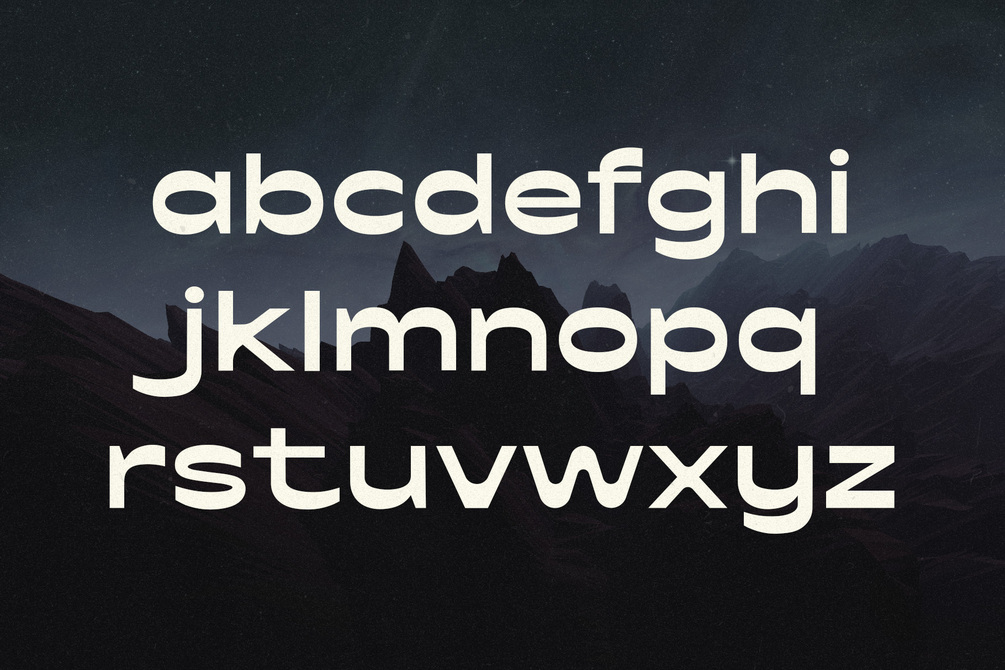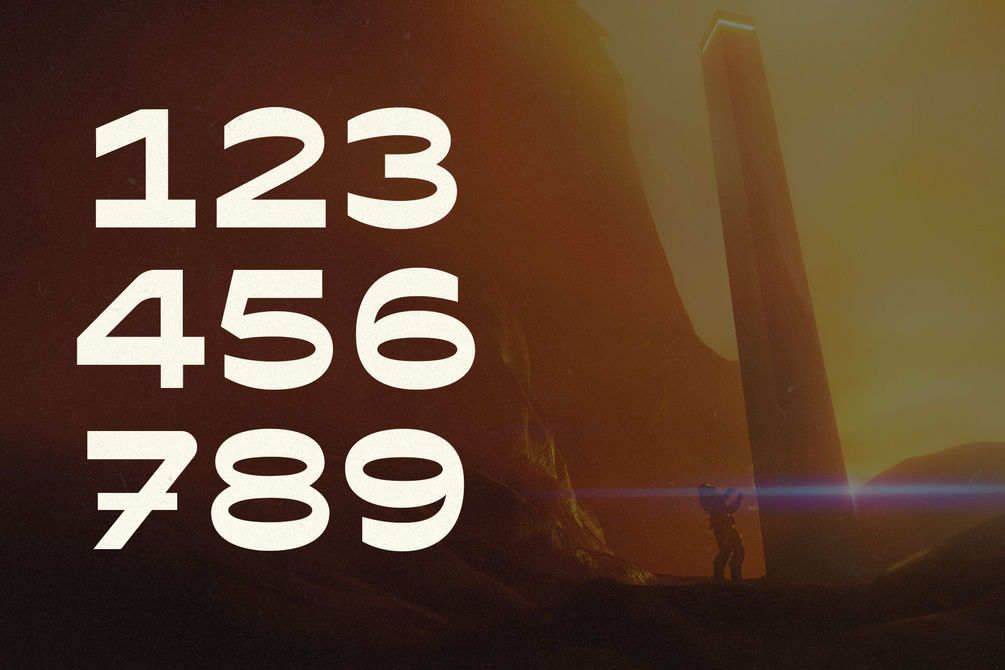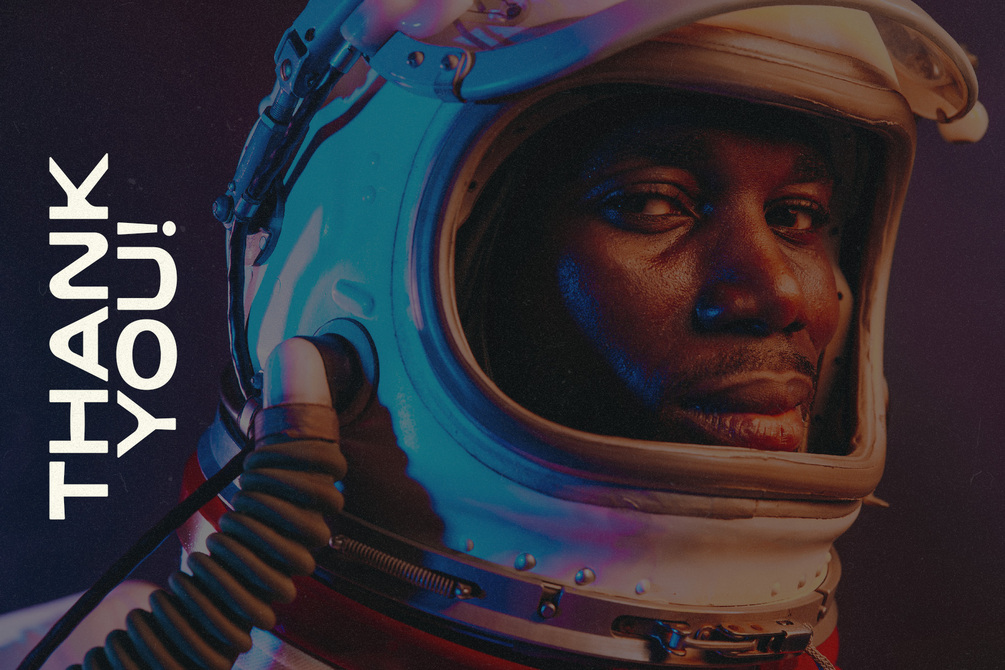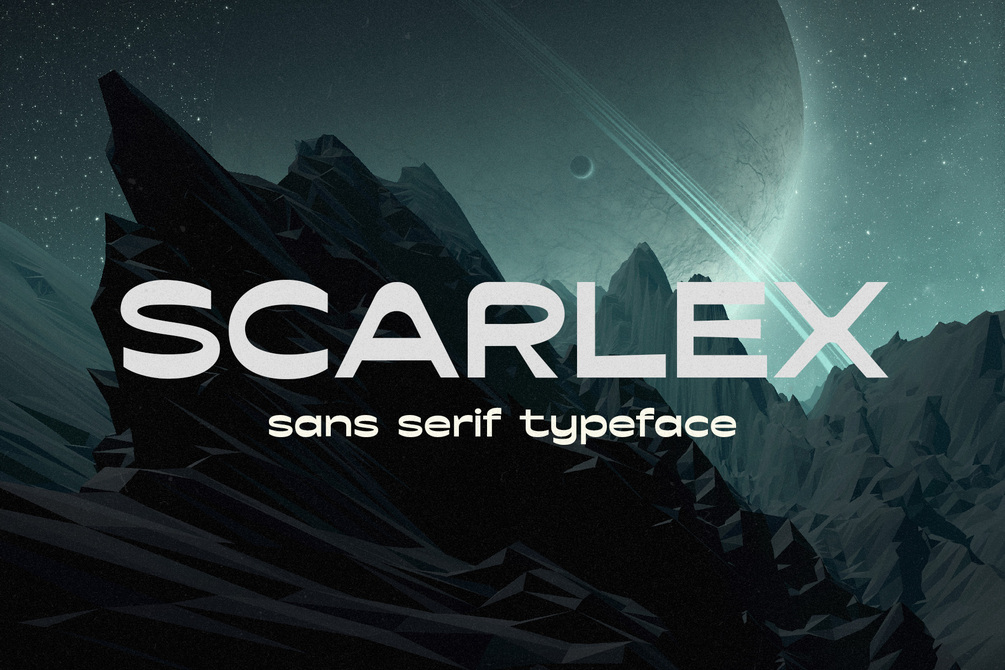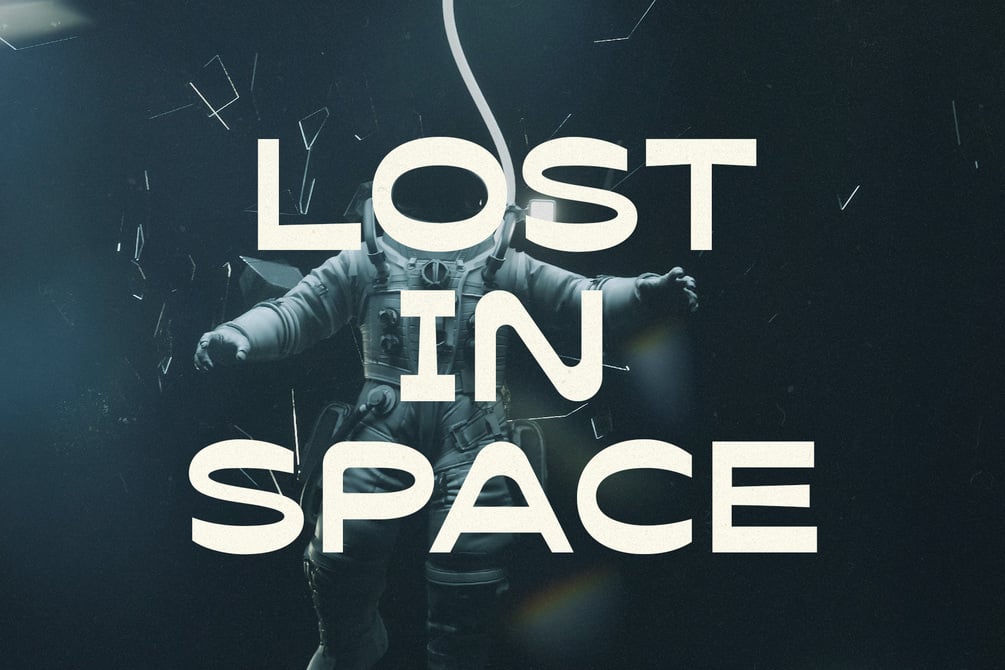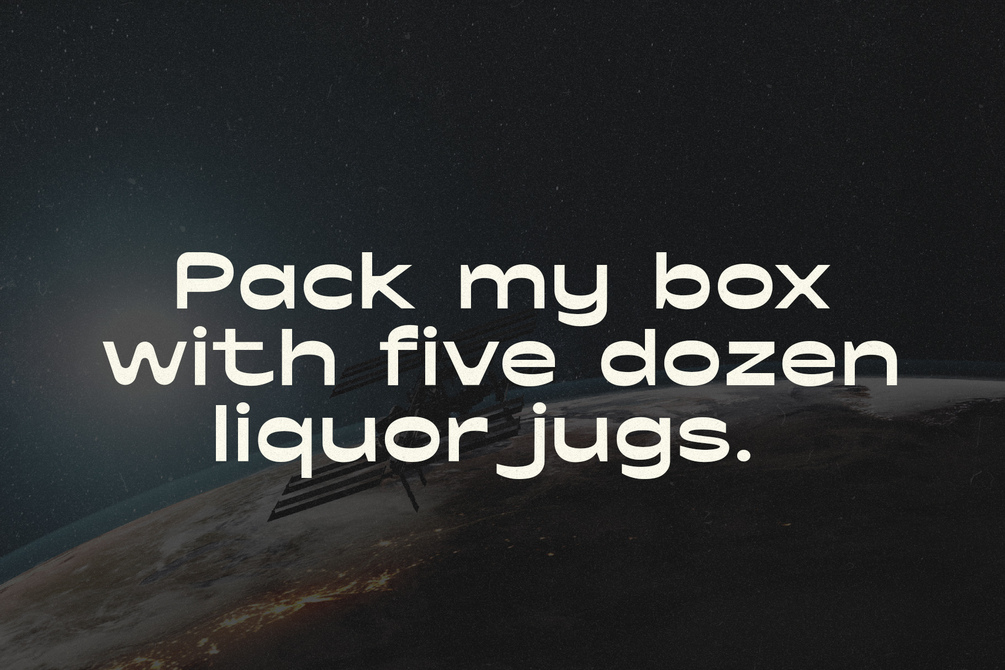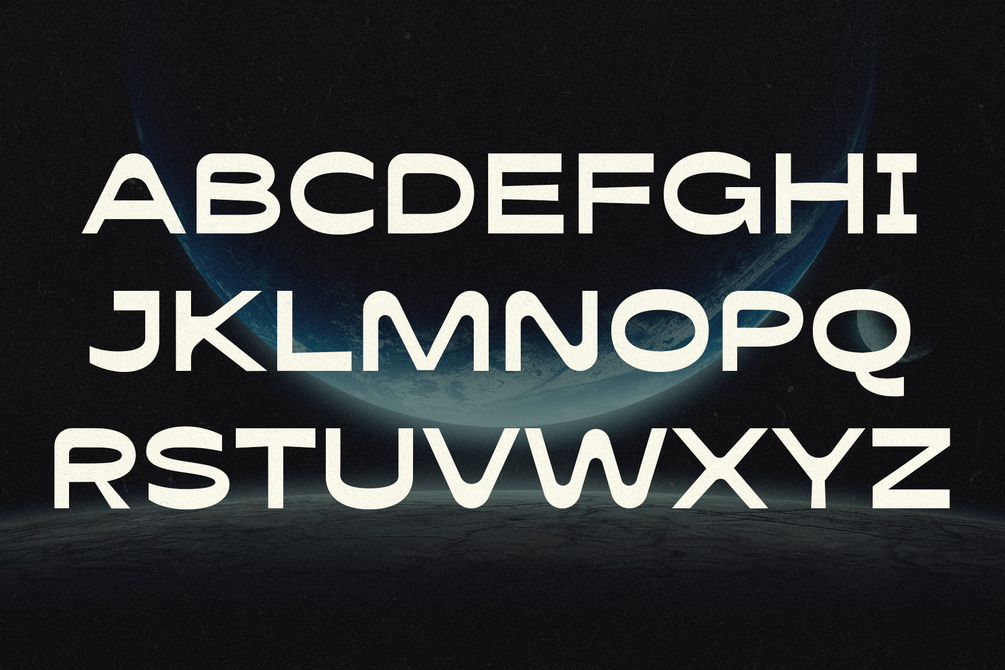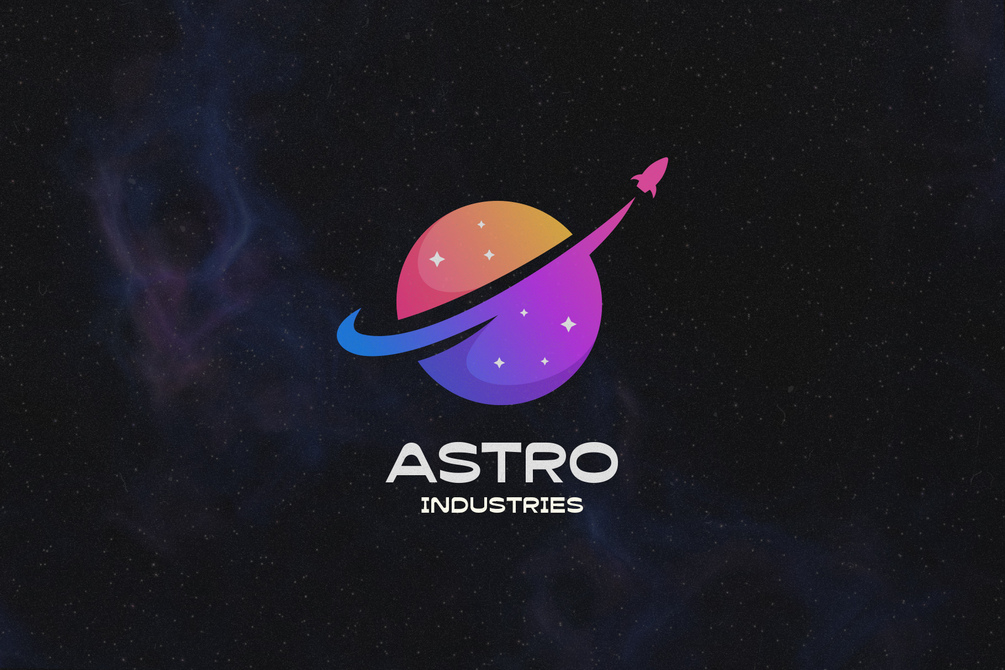
Scarlex - Retro Space Typeface
Scarlex is a unique display typeface that looks retro, modern, and futuristic all at the same time. It was inspired by science fiction movies and books from the 1960s. The font is perfect for science research posters, movies, posters, branding labels, automotive type design, t-shirts, branding, book covers, and more. If you're looking to infuse your design project with some personality, then Scarlex should definitely be on your radar.